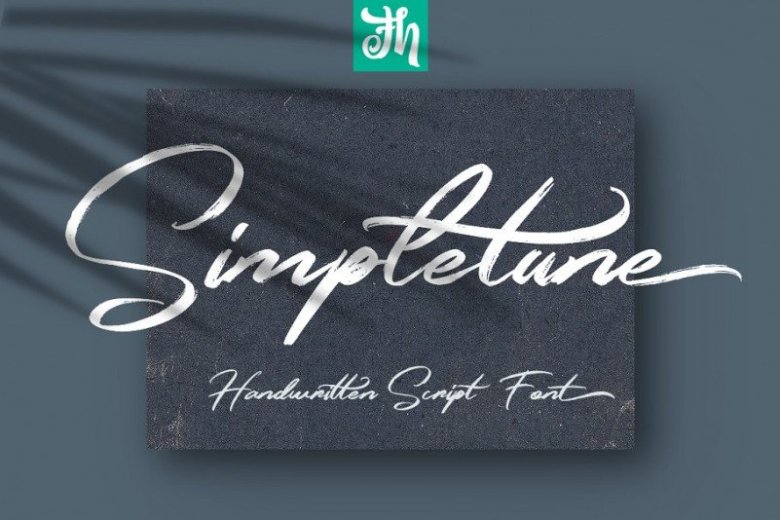
Simpletune Handwritten Font
Simpletune Handwritten Demo Font
Continues to be a design of FHFont. A new handwritten script font. You may use this font if you want to attract modern buyers. Introducing Simpletune Handwritten Script Font. Simpletune is handwritten script font with dry brush and signature style. Suitable for design, element design, wedding, event, t-shirt, logo, badges, sticker, and awesome work, etc…